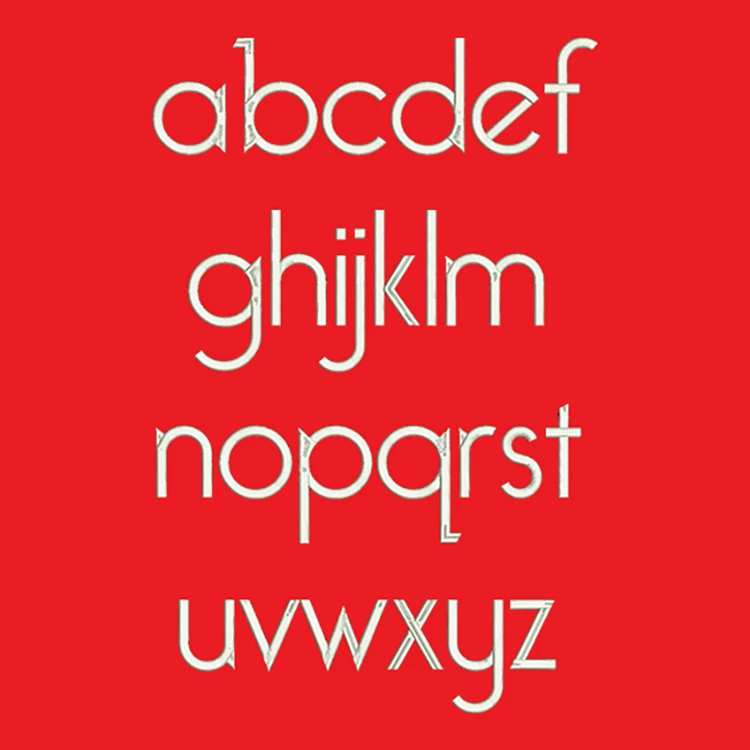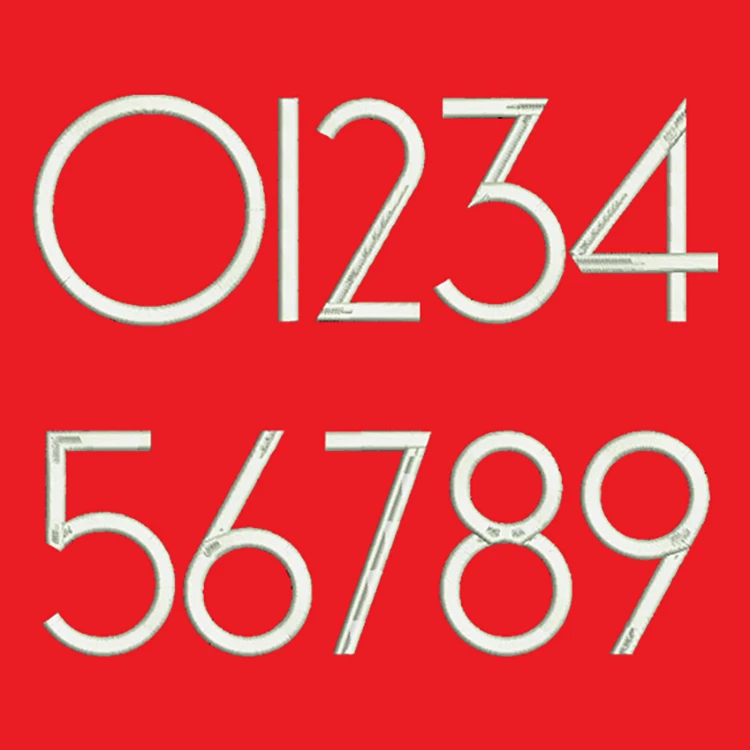
Title: Bellerose Machine Embroidery Font
This Bellerose font is perfect for personalizing clothes, bags, towels and linens!
This beautiful font would look amazing as a Monogram on Totes, School bags and purses!